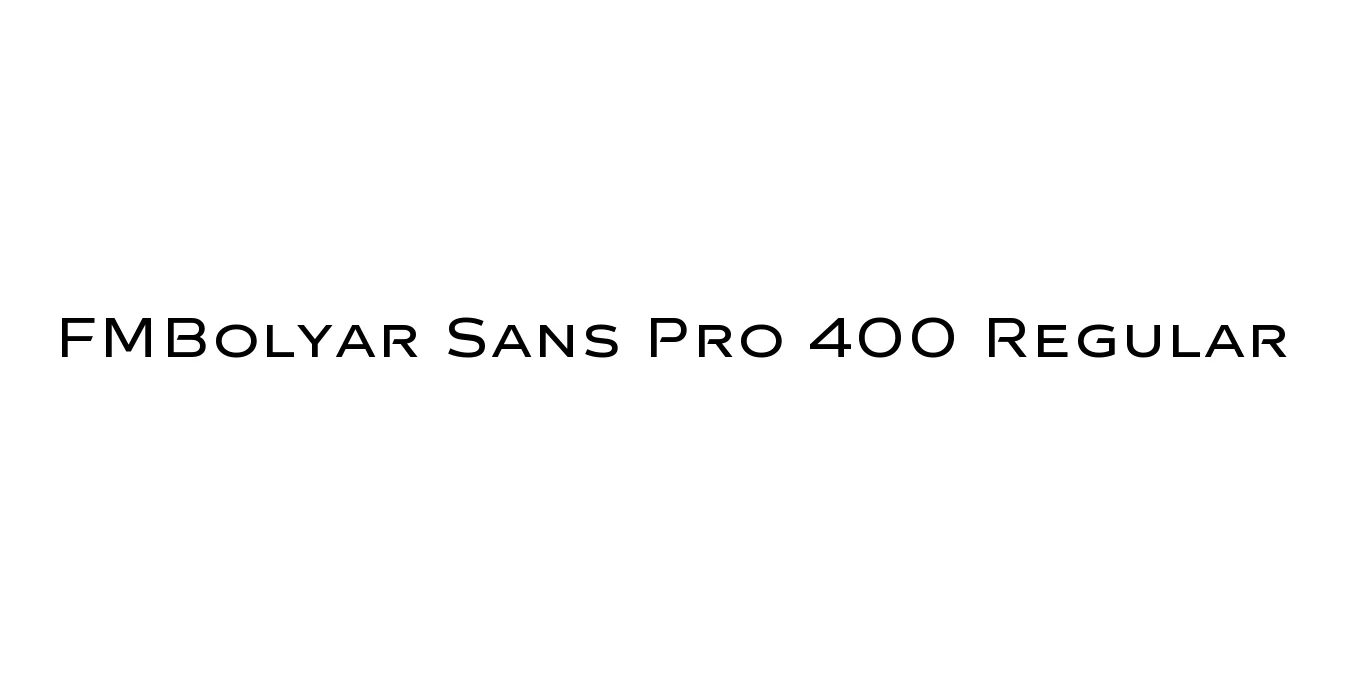
FMBolyar Sans Pro 400 Regular
Designed by Jordan Jelev and Vassil Kateliev
FMBolyar Sans Pro 400 Regular is a sophisticated and highly versatile sans-serif typeface developed by the renowned Bulgarian studio Fontmaker. As a key component of the expansive Bolyar mega-family, this weight was meticulously crafted to provide a clean, contemporary alternative to the more ornate and decorative members of the series. Its balanced proportions and refined geometric structure ensure exceptional legibility across both digital and print platforms, making it a favorite for modern designers.
The 400 Regular weight serves as the backbone of the series, featuring a robust set of OpenType features including ligatures and stylistic alternates. Designed with professional branding and high-end editorial work in mind, this typeface excels in environments that demand clarity and a neutral yet authoritative tone. Whether utilized for body text or sophisticated interface design, it maintains its integrity and professional aesthetic under various rendering conditions.
FMBolyar Sans Pro 400 Regular Best Uses
Perfect for creating a clean and trustworthy corporate identity.
Excellent for body text and user interface elements due to its high readability.
Ideal for magazines and books where clear, unobtrusive text is required.
Provides a minimalist and modern aesthetic for product labeling.